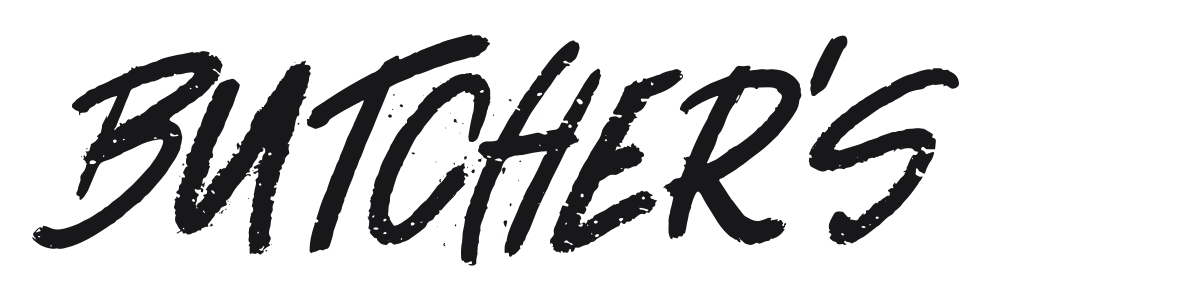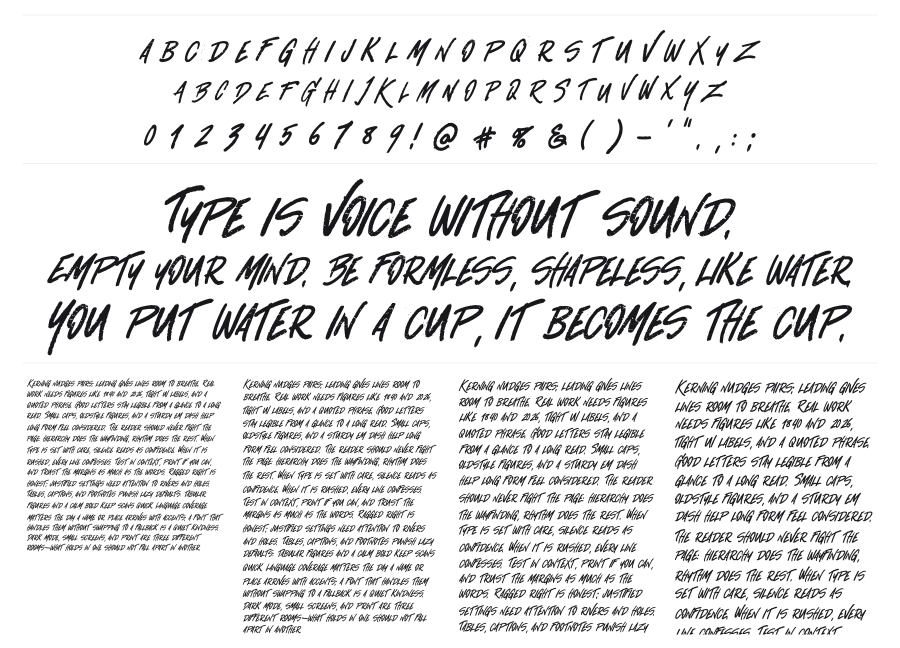
Butcher's
Butcher's is a raw, high-energy brush script built on quick, aggressive strokes and rough bristle textures. The heavy slant and jagged terminals make it feel like it was scrawled with force, giving even a single word serious attitude. It suits streetwear, merchandise, packaging, and any design that needs to shout.